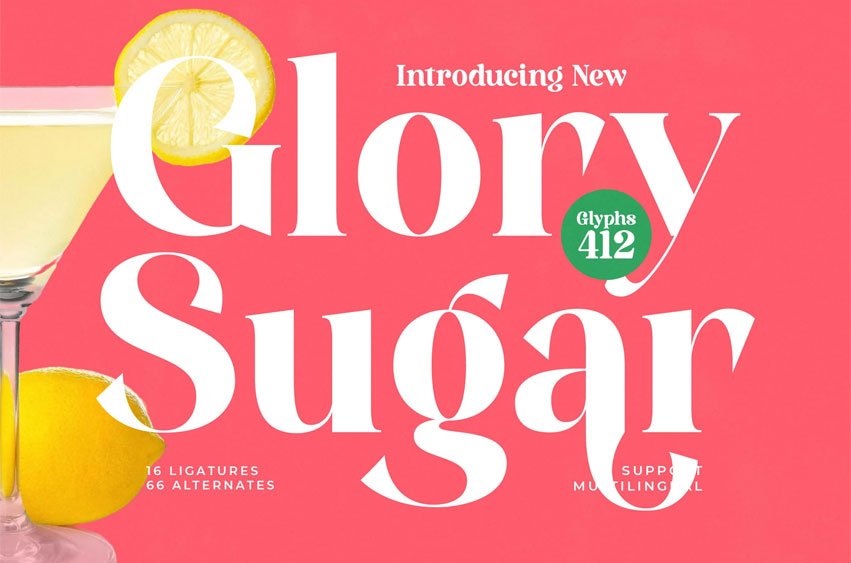
Glory Sugar Font is a modern bold serif font with refined curves and elegant details, designed to bring a luxurious yet contemporary feel to your designs. Featuring stylish ligatures and versatile alternates, this typeface is perfect for logos, branding, packaging, invitations, posters, and editorial layouts.
With its charm and sophisticated style, Glory Sugar adds creativity and elegance to both print and digital projects.